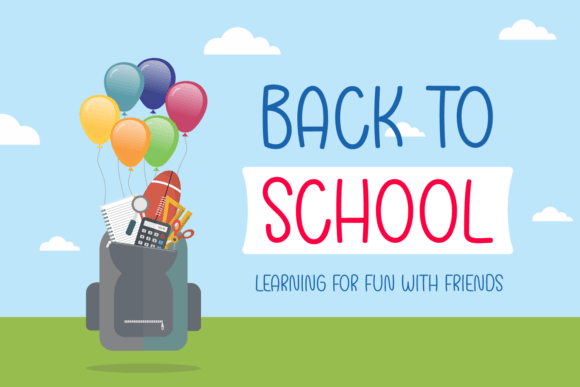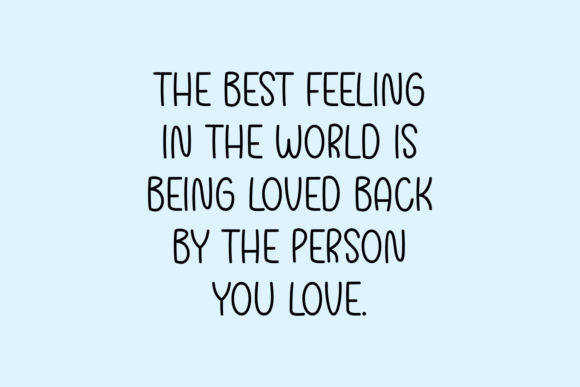
Bonding Time Font: Adding a Touch of Whimsy to Your Design Projects
In the world of typography, fonts play a crucial role in conveying emotions, personality, and style. For designers and crafters looking to add a touch of warmth, creativity, and charm to their projects, the Bonding Time font is an excellent choice. This playful handwritten font features thin letterforms that exude a sense of playfulness and approachability, making it perfect for a wide range of design applications.
The Characteristics of Bonding Time Font
Bonding Time is a handwritten font that boasts a unique and distinctive style. Its thin letterforms give it a delicate and airy feel, while its playful aesthetic makes it perfect for designs that require a touch of whimsy. The font’s handwritten style adds a personal and human touch to any project, making it ideal for designs that aim to connect with the audience on a more personal level.
One of the standout features of Bonding Time is its versatility. This font can be used for a wide range of design projects, from personal crafts to commercial branding. Whether you’re designing a logo, a greeting card, or a social media post, Bonding Time is sure to add a touch of personality and charm to your work.
Uses of Bonding Time Font
So, what can you use the Bonding Time font for? The possibilities are endless! Here are a few ideas to get you started:
• Personal Projects: Use Bonding Time to add a personal touch to your journals, planners, and crafts. This font is perfect for creating unique and personalized designs that reflect your personality and style.
• Branding: Bonding Time is an excellent choice for branding projects that require a touch of warmth and personality. Use this font to create logos, business cards, and packaging that stands out from the crowd.
• Events: Add a touch of whimsy to your event designs with Bonding Time. This font is perfect for creating invitations, flyers, and posters that require a playful and creative aesthetic.
• Social Media: Use Bonding Time to create engaging and eye-catching social media posts that reflect your personality and style. This font is perfect for creating graphics, quotes, and other visual content that requires a touch of personality.
Why Choose Bonding Time Font?
So, why should you choose Bonding Time font for your design projects? Here are a few reasons:
• Unique Style: Bonding Time boasts a unique and distinctive style that sets it apart from other fonts. Its thin letterforms and playful aesthetic make it perfect for designs that require a touch of whimsy and personality.
• Versatility: This font is incredibly versatile and can be used for a wide range of design projects. Whether you’re designing a logo, a greeting card, or a social media post, Bonding Time is sure to add a touch of personality and charm to your work.
• Emotional Connection: Bonding Time is a font that invites viewers to embrace creativity, connection, and the joy of shared experiences. This font is perfect for designs that aim to connect with the audience on a more personal level.
In conclusion, Bonding Time font is a playful handwritten font that adds a touch of whimsy and personality to any design project. With its unique style, versatility, and emotional connection, this font is perfect for designers and crafters looking to create designs that reflect their personality and style. Whether used for personal projects, branding, events, or social media, Bonding Time invites viewers to embrace creativity, connection, and the joy of shared experiences.
So, if you’re looking for a font that adds a touch of warmth, creativity, and charm to your designs, look no further than Bonding Time. With its thin letterforms and playful aesthetic, this font is sure to become a favorite in your design arsenal.